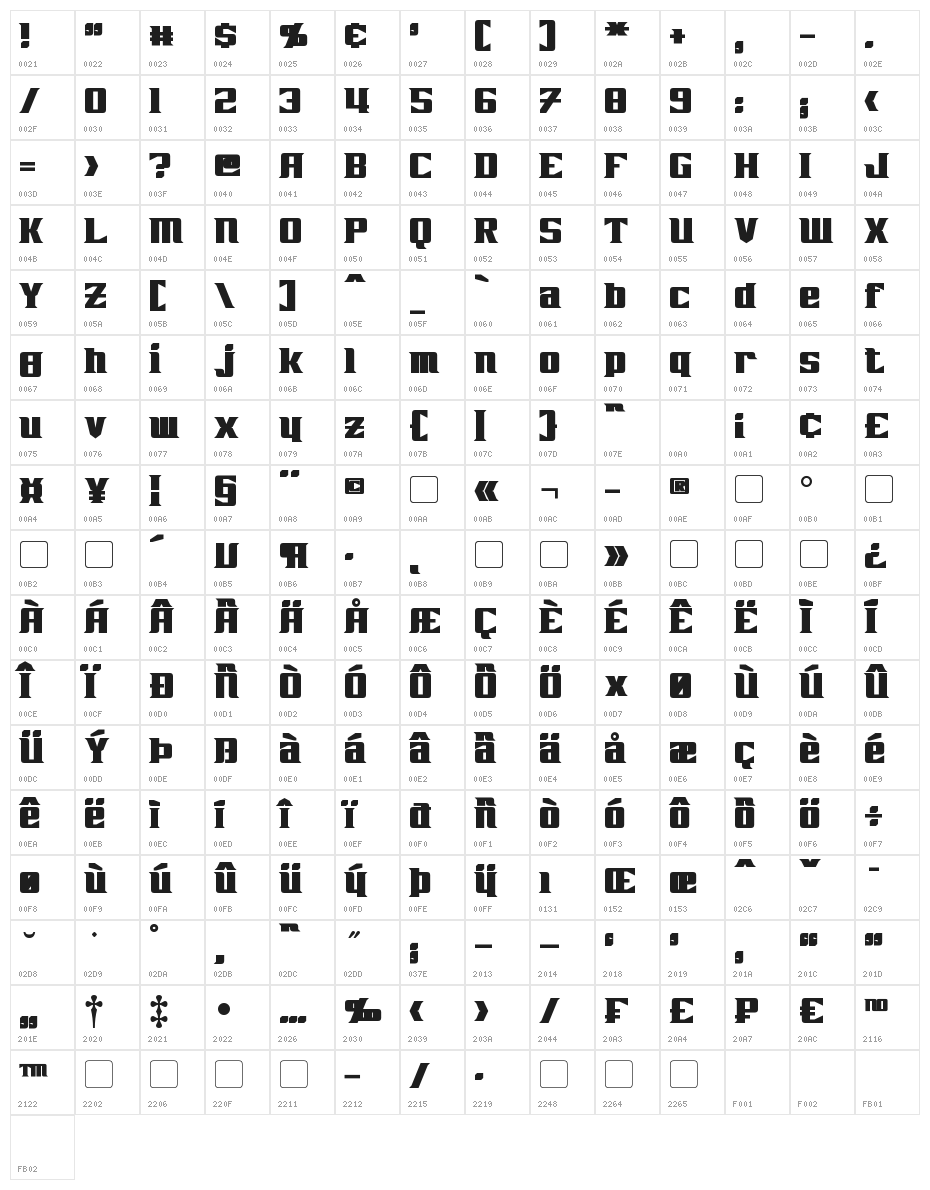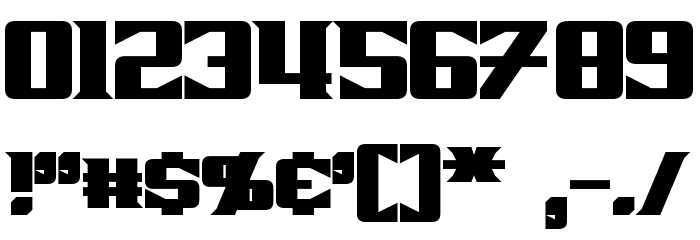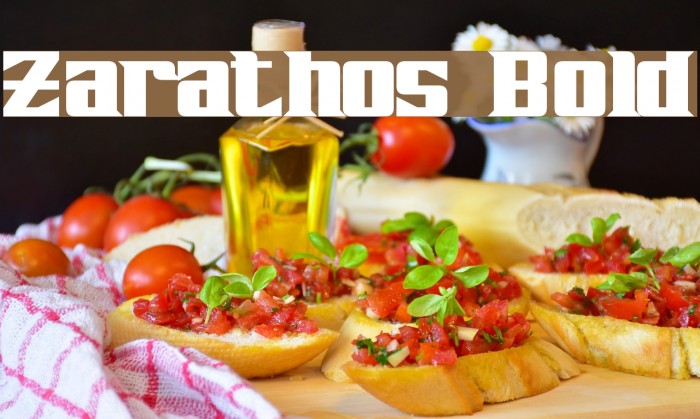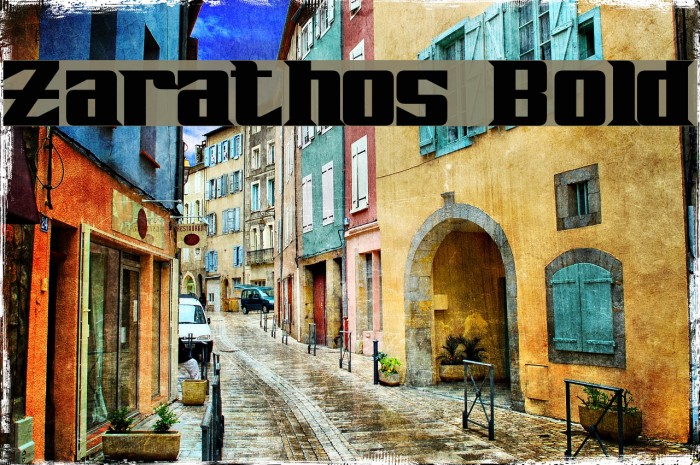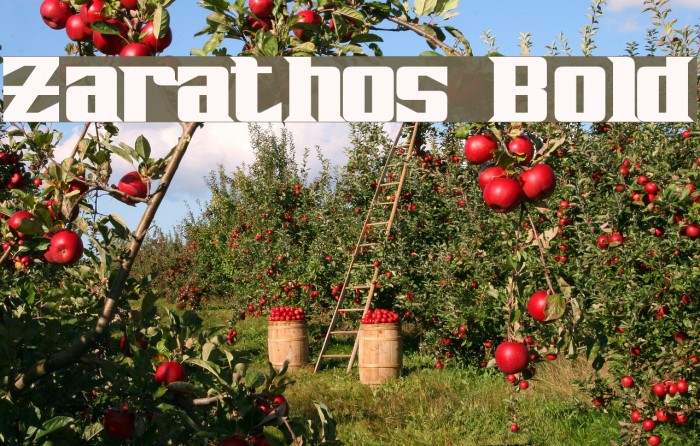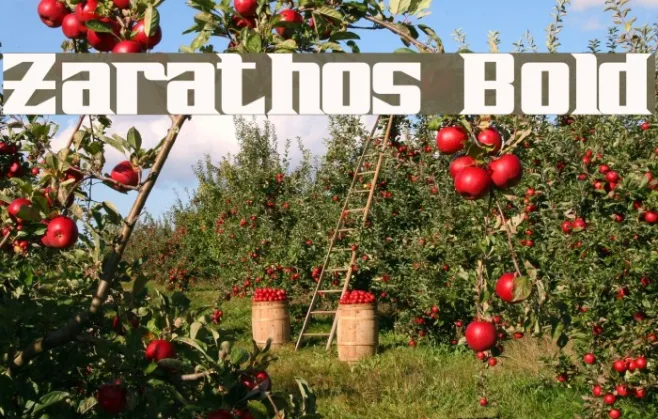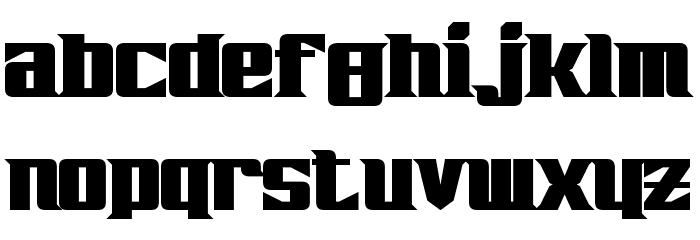
Zarathos Bold Font
Zarathos Bold Description
This font exhibits a bold and striking design, characterized by its sharp, angular edges and strong geometric shapes. The uppercase letters are particularly dominant, with a heavy weight that commands attention. The lowercase letters maintain a consistent style, offering a cohesive look across different text cases. Numbers and special characters are equally bold, ensuring uniformity throughout. This font's distinct style makes it ideal for impactful designs where visibility and emphasis are key. Its unique aesthetic can add a modern and edgy touch to any project.
| Proposed Projects | Ideal for branding, posters, headlines, and any design requiring a bold statement. |